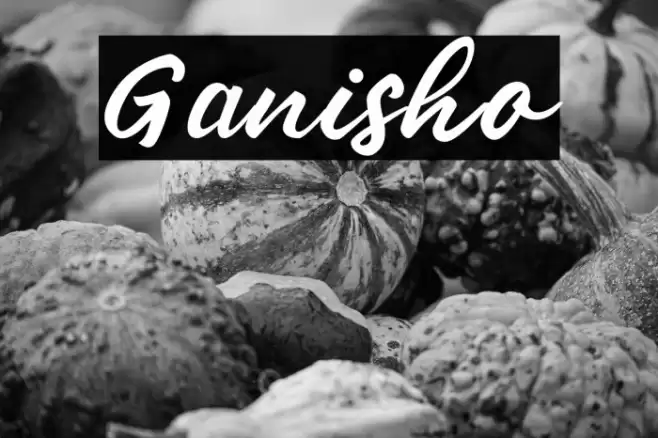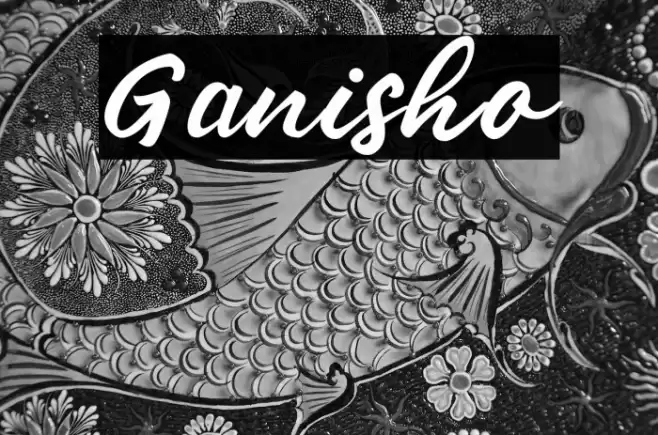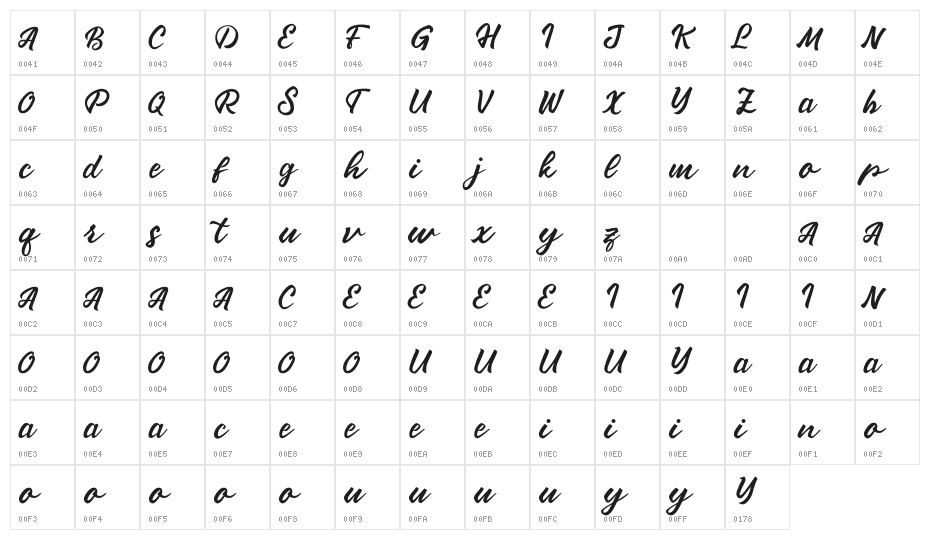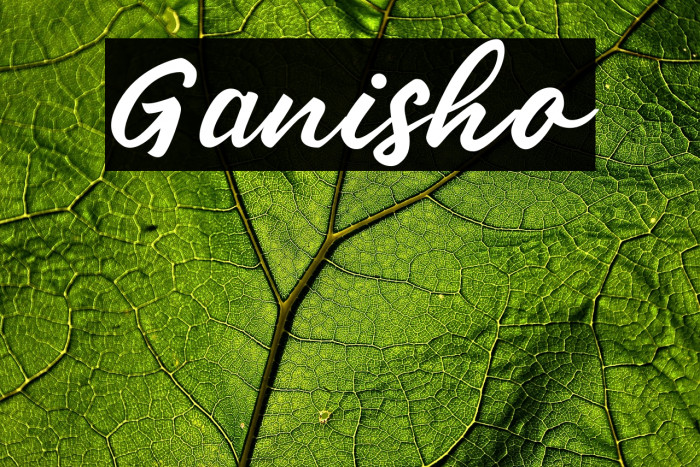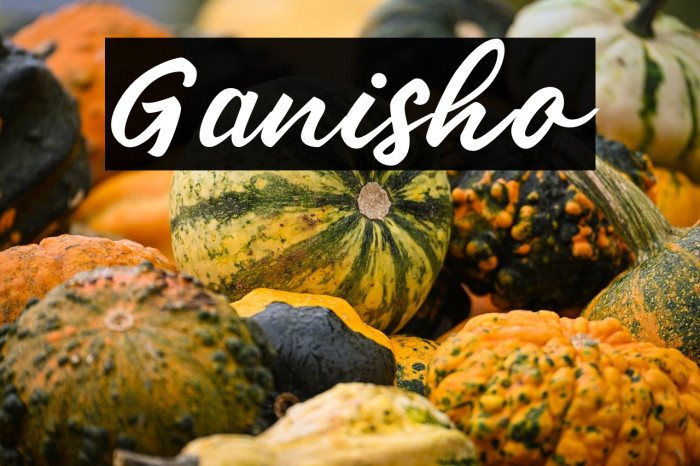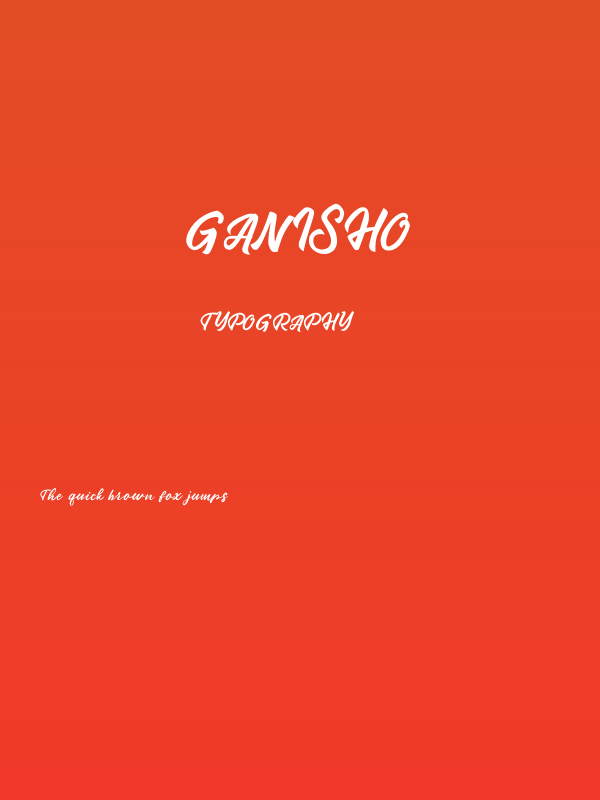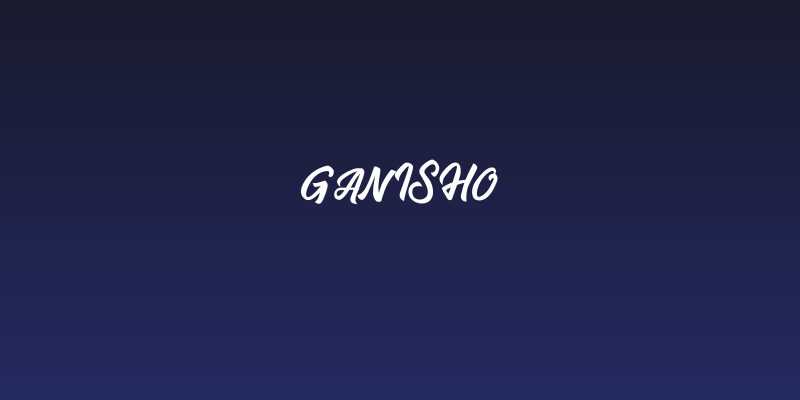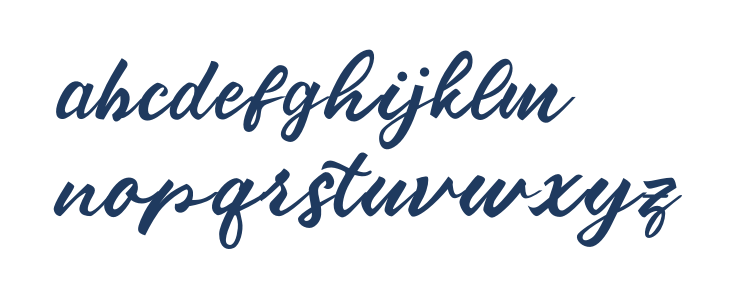
Ganisho Font
Ganisho Description
This font features a flowing, cursive style with elegant, sweeping strokes that give it a handwritten appearance. The uppercase letters are bold and slightly slanted, adding a dynamic feel, while the lowercase letters maintain a consistent flow with smooth connections. The absence of special characters and numbers suggests a focus on alphabetic expression. The overall design is both stylish and legible, making it suitable for creative and decorative purposes.
A bold, cursive font with elegant, flowing strokes from Regular fonts.
- Proposed Projects: Ideal for wedding invitations, greeting cards, branding, and logo design where a personal touch is desired.
- Use Case: Logos, Invitations, Decorative text